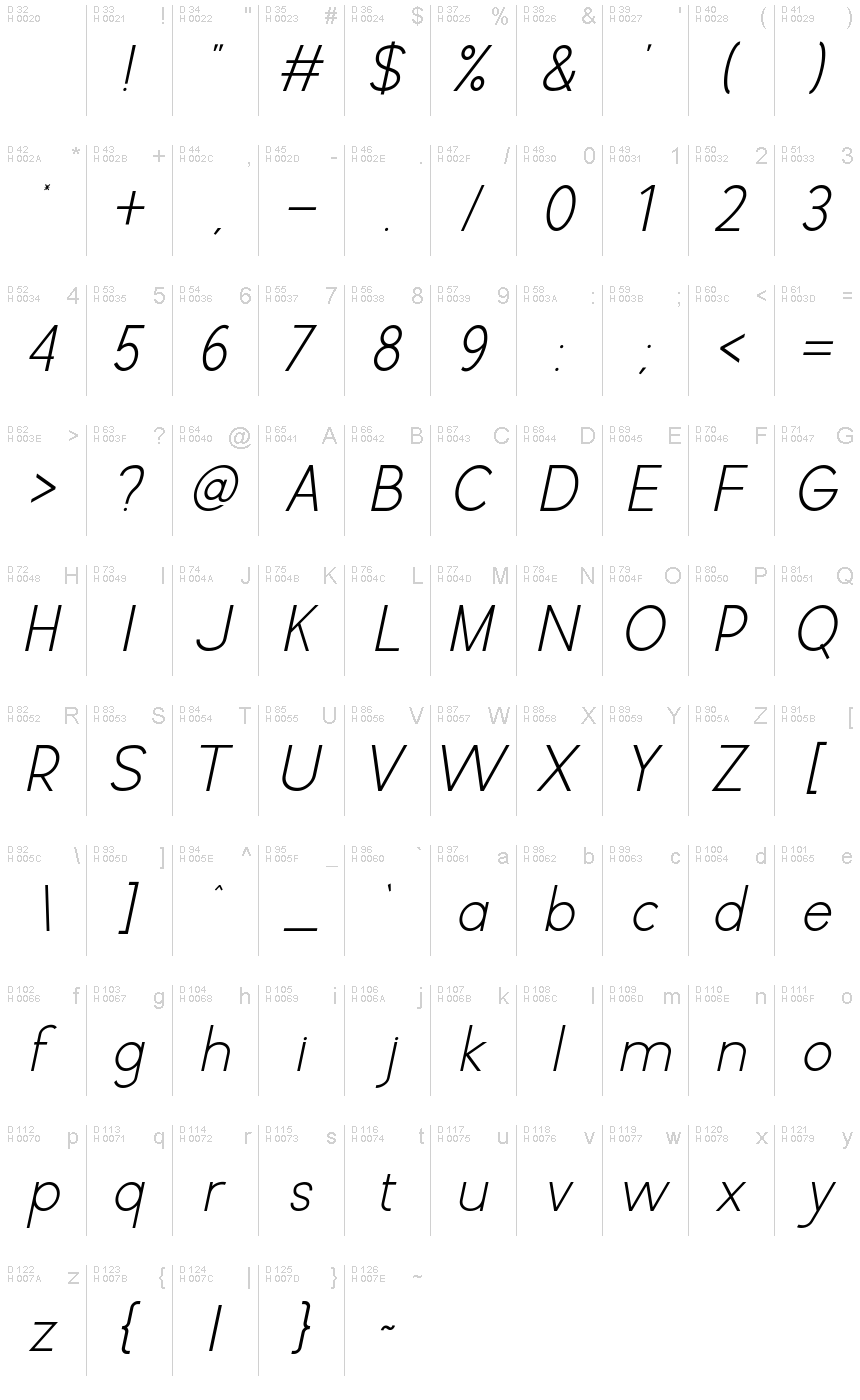
Sweet Bread Italic
Sweet Bread is a captivating sans-serif font crafted by Rvandtype. With its elegant, light-weight strokes and subtle curves, this font exudes a sense of warmth and sophistication. The unique letterforms seamlessly blend tradition and modernity, creating a visually appealing and versatile typeface.
The delicate balance between the font's playful and refined elements makes it an excellent choice for a wide range of design applications. Sweet Bread's clean and legible appearance lends itself well to branding, editorial layouts, and captivating digital interfaces. Its versatility also extends to crafting elegant invitations, charming packaging, and eye-catching social media content, where its distinctive style can truly shine.